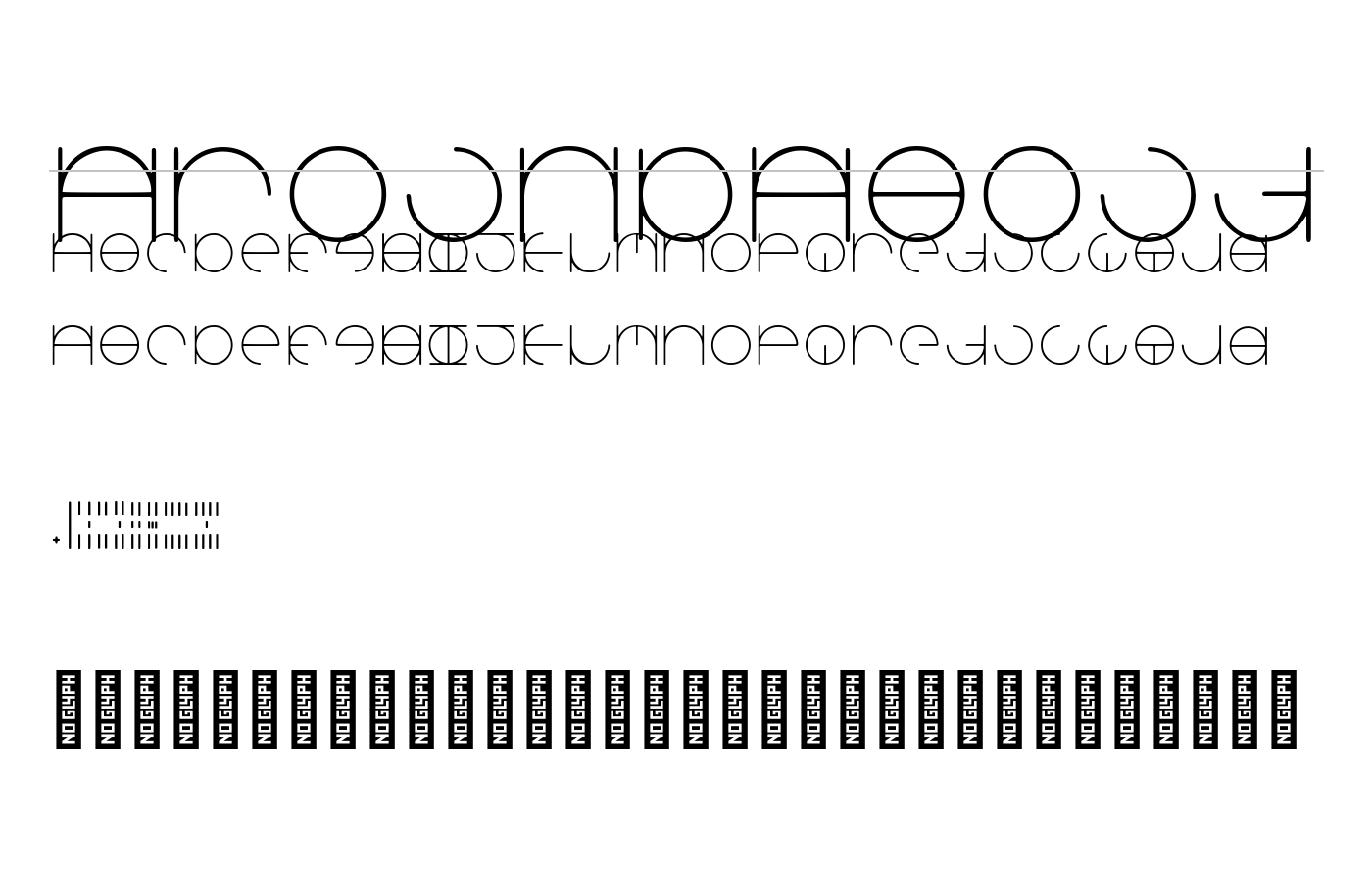
Aroundabout is a thin, geometric sans serif font characterized by its rounded shapes and minimalist design, giving it a modern and futuristic feel. With its light weight and airy spacing, this typeface works beautifully for creative headlines, branding, and editorial projects that seek a sleek, avant-garde aesthetic. Its unique letterforms convey innovation and playfulness, making it ideal for fashion, technology, or art-focused designs.
Aroundabout Font
About Aroundabout Font
| Font family | Aroundabout Font |
| Designer | H.G. Blakeman |